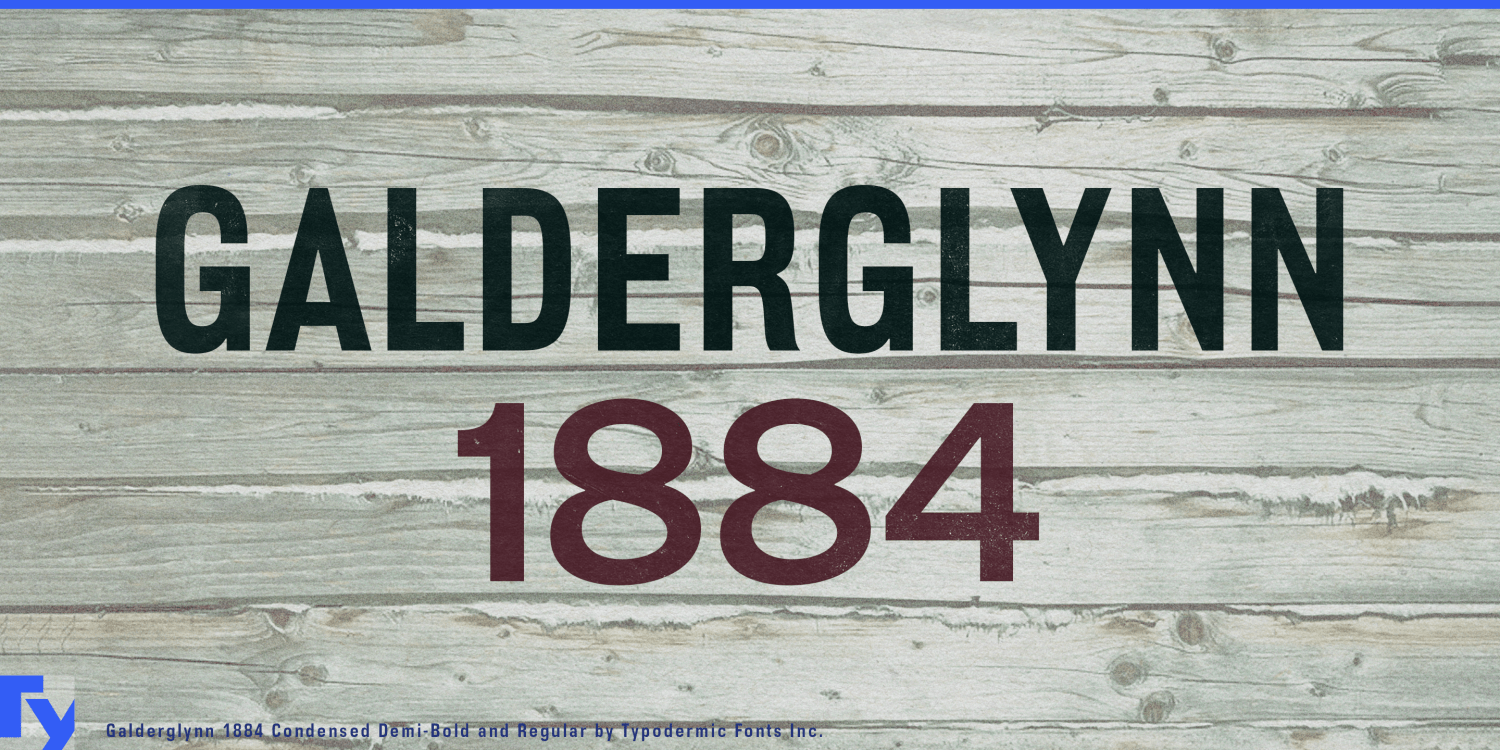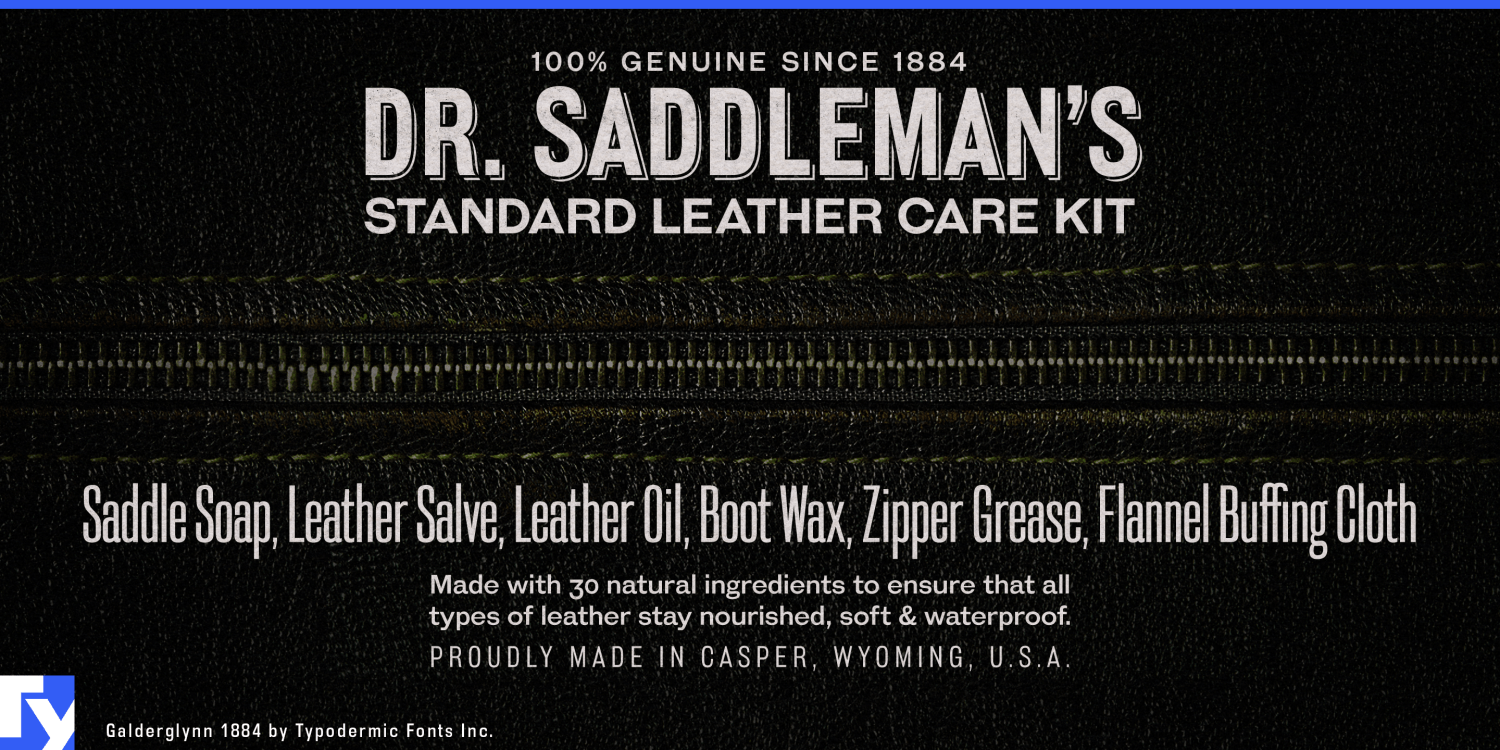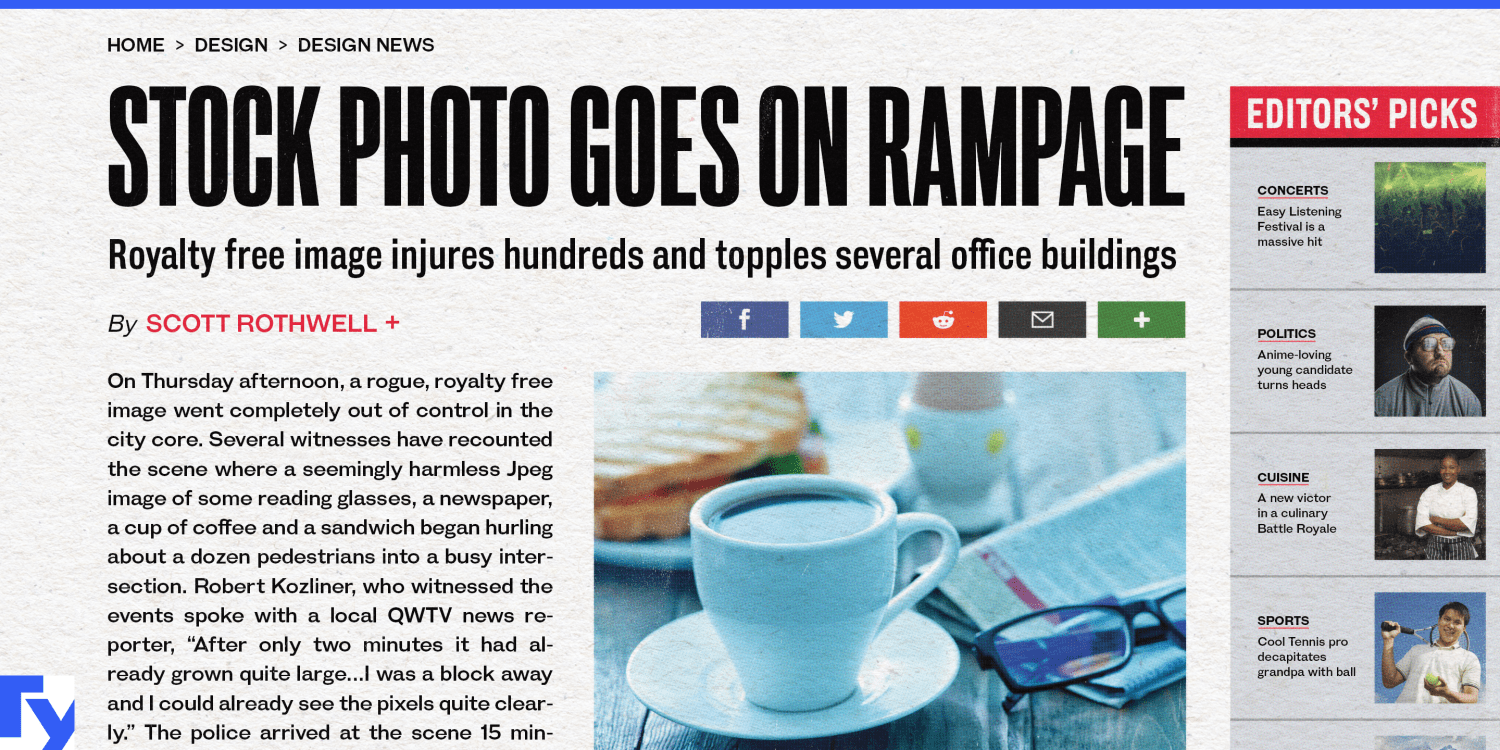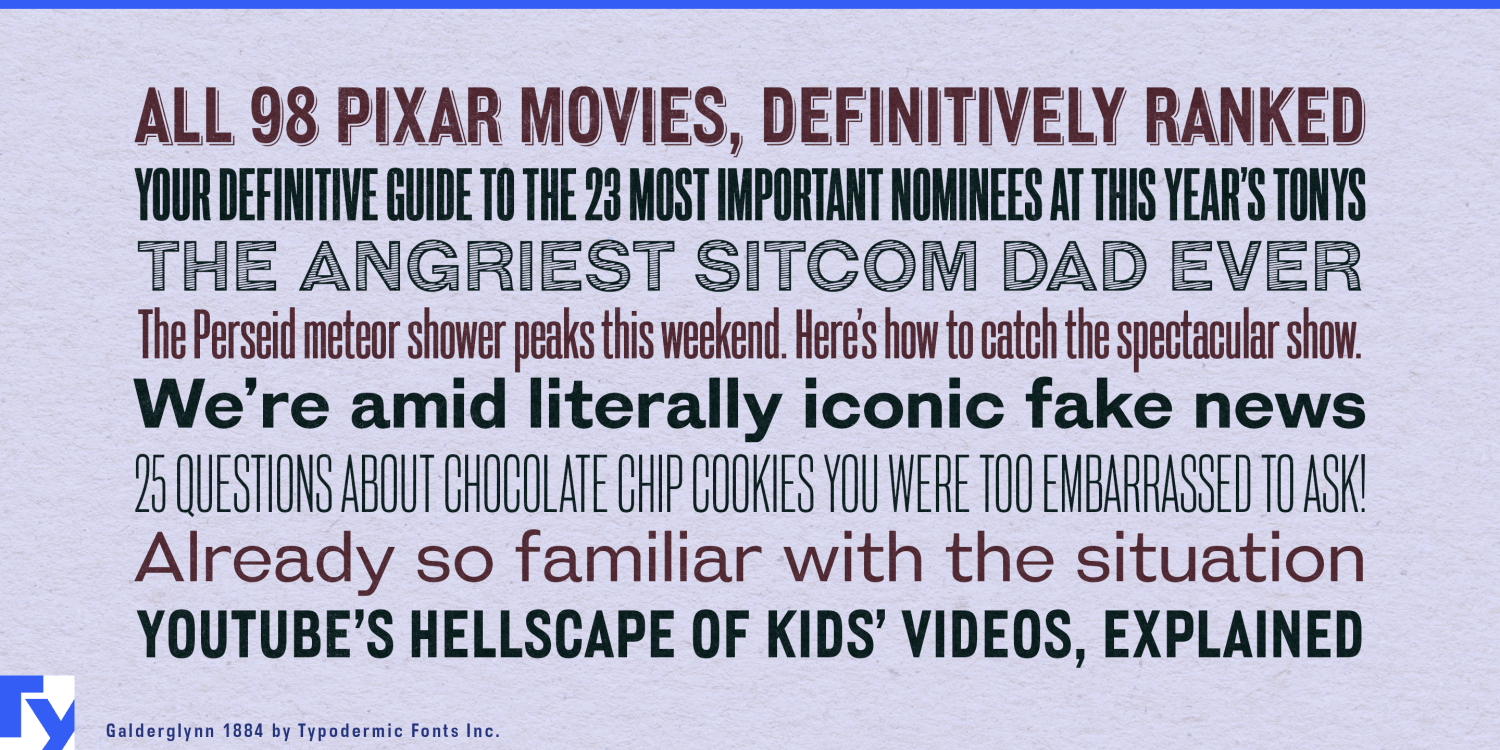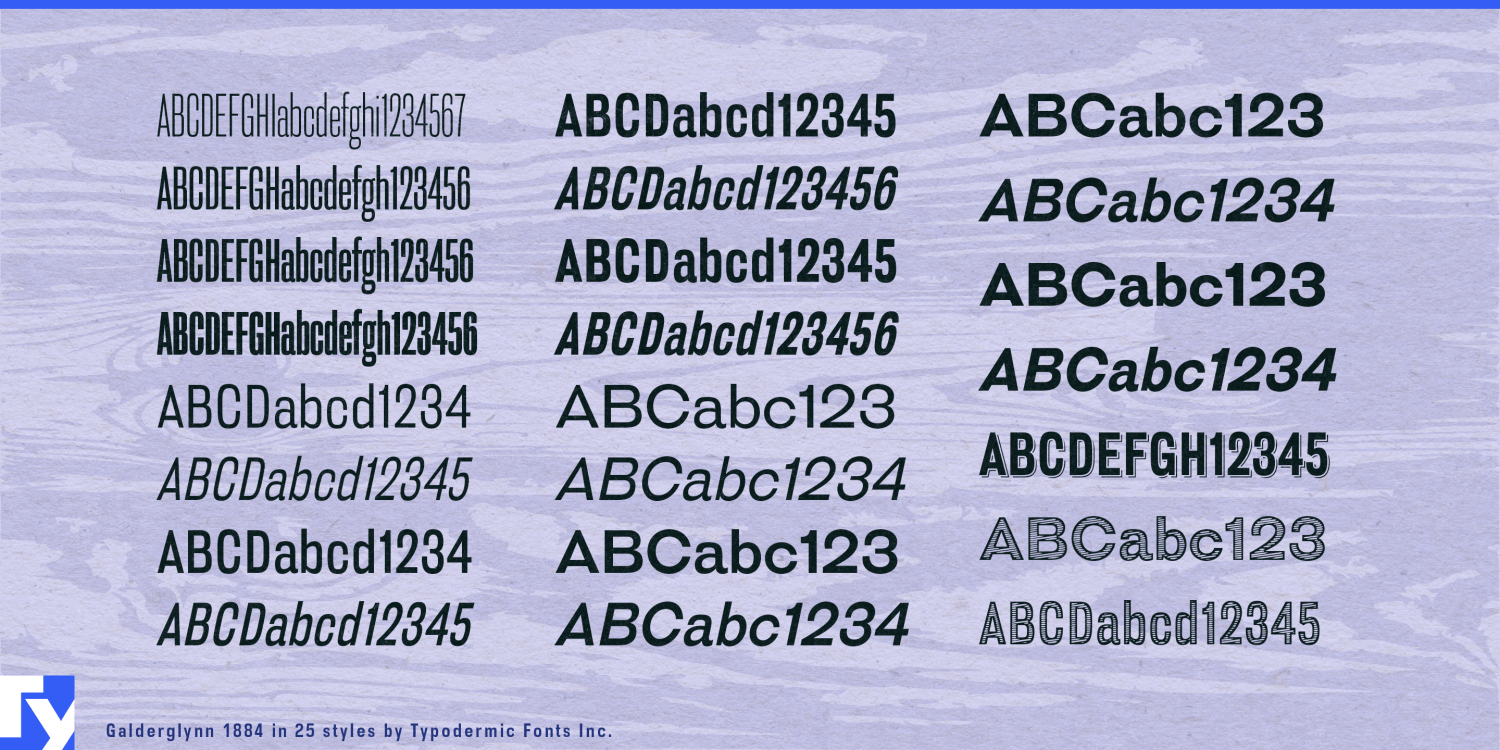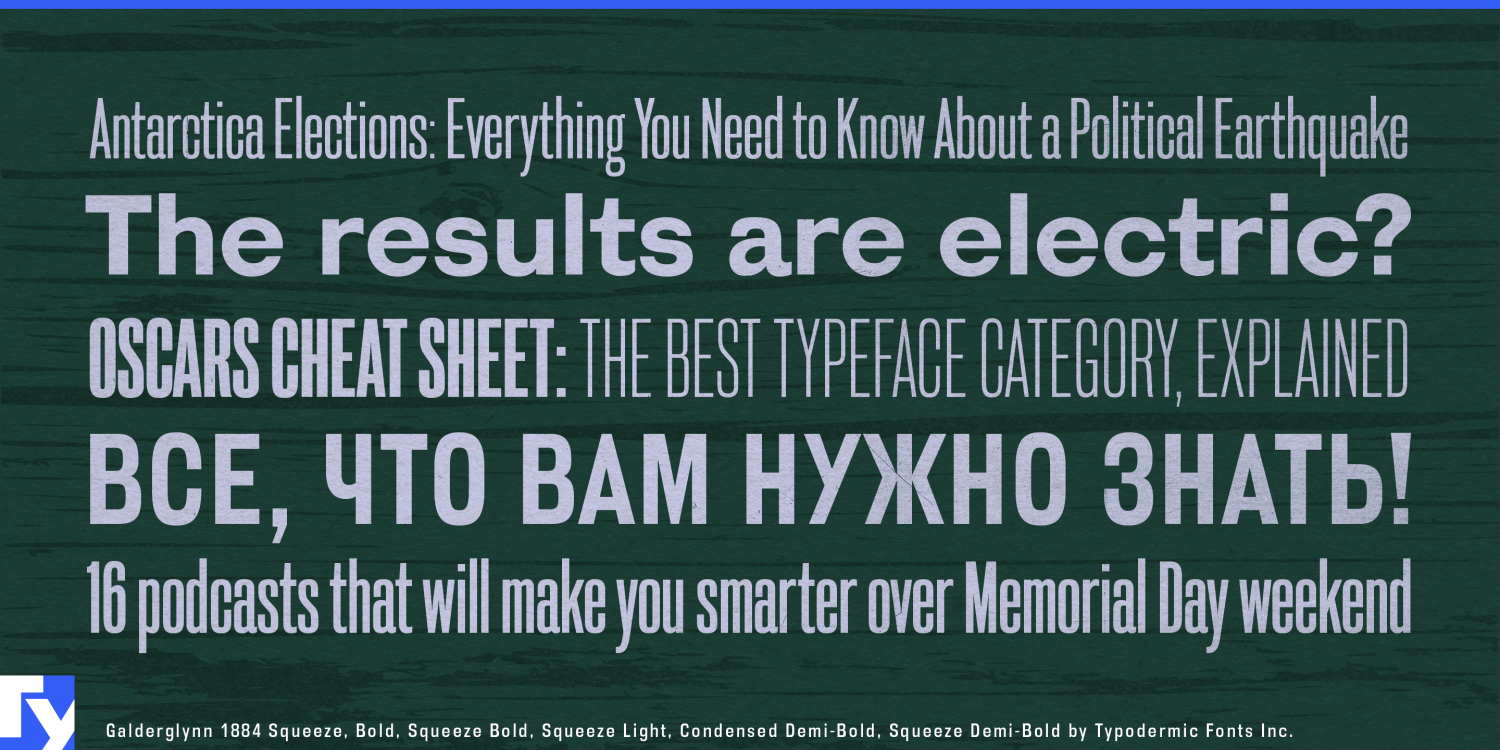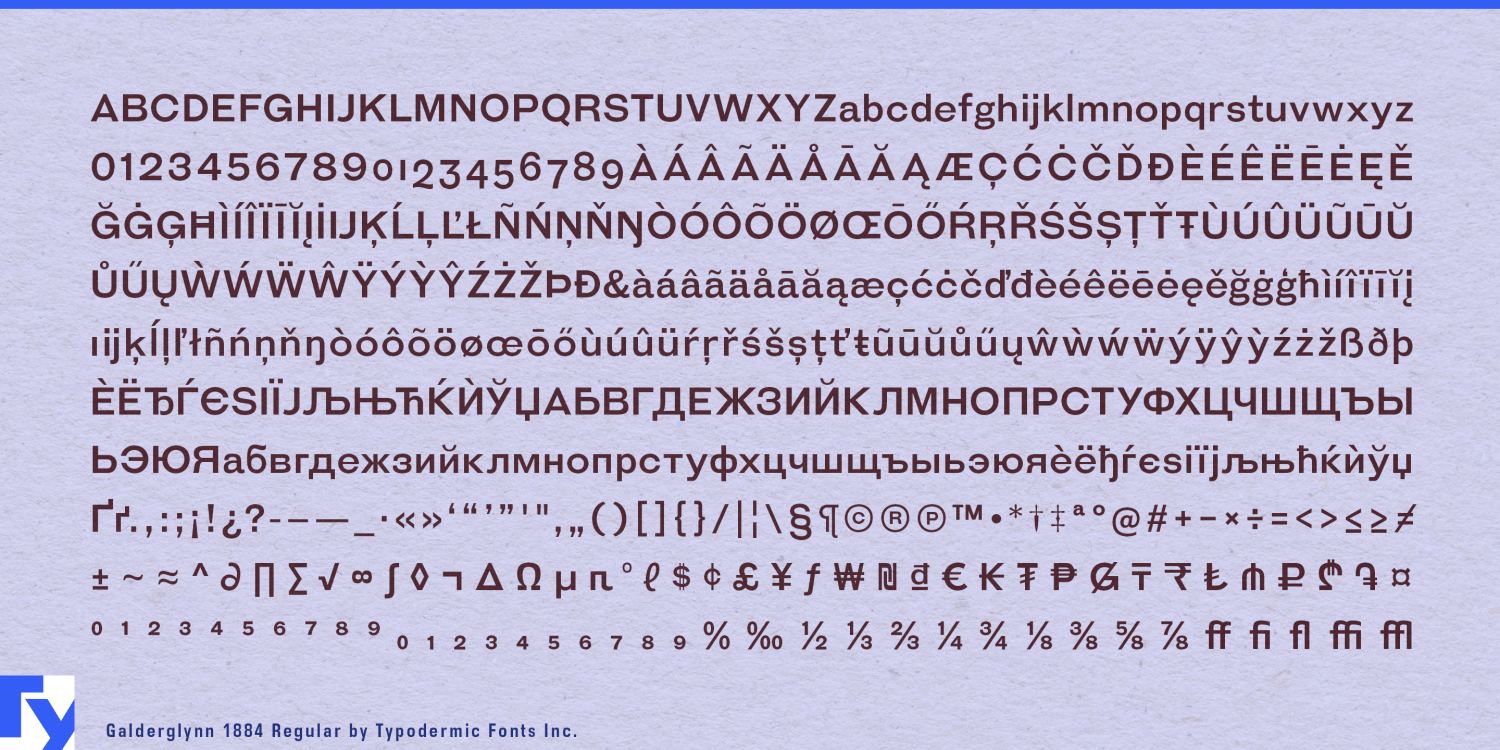
Galderglynn 1884
Buy NowRecreating one nineteenth-century headline is easy. Building an entire nineteenth-century visual system is where the trouble starts. The period offers countless distinctive grotesques, condensed faces, engraved styles and shadowed display letters, but they were rarely designed to cooperate as one family. A modern identity that needs all of those voices can quickly become a scavenger hunt through unrelated typefaces. Galderglynn 1884 was built to solve that problem.
The family grew from a commission for Jameson Irish Whiskey. The agency had seen Galderglynn Esquire, with its deliberately mismatched nineteenth-century grotesque forms, but needed something more controlled and far more extensive. Galderglynn 1884 developed that vocabulary into a coordinated 25-style system, including regular and condensed families with italics, four extremely narrow Squeeze weights, plus engraved and shadow treatments.
That range is especially useful for beverage identities and other heritage products that have to work across many objects. A distillery may need a broad bottle name, a narrow age statement, batch information on a side panel, neck labels, cartons, tasting-room menus, barrel graphics and visitor-centre signs. Galderglynn 1884 can change width, weight and treatment while keeping those elements recognizably related instead of assembling the identity from unrelated Victorian display faces.
Its compressed styles preserve a construction that has become less common in contemporary sans-serif families. Rather than merely squeezing ordinary proportions narrower, the Condensed and Squeeze designs become increasingly flat-sided, recalling nineteenth-century newspaper and poster grotesques. The narrowest styles are especially useful for bottle necks, book spines, tall signs, narrow packaging panels, ticket graphics and long names forced into vertical spaces.
Historical exhibitions face the same system problem at a different scale. Railway museums, industrial-history displays and exhibitions about nineteenth-century cities may need large section headings, compressed timeline titles, maps, artifact labels and decorative panels that all belong to the same period. Film, television and game production can draw on the family for coordinated newspaper headlines, railway placards, shop signs, hotel notices and advertising props.
Publishing and historic hospitality offer similar opportunities. Historical nonfiction, biographies and industrial histories can use Galderglynn 1884 for jackets, series identities, chapter openings and timelines, while historic pubs, restored railway hotels and old-market restaurants can carry the same visual language across menus, room numbers, signs and event graphics.
Galderglynn Esquire began with the idea of a type drawer filled with mismatched nineteenth-century grotesques. Galderglynn 1884 is what happens when somebody organizes the drawer and makes sure every useful width and treatment is actually there.